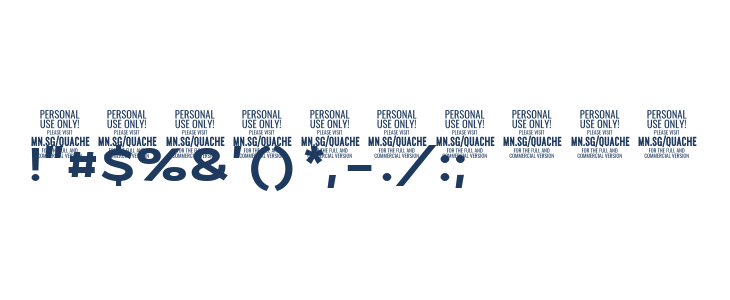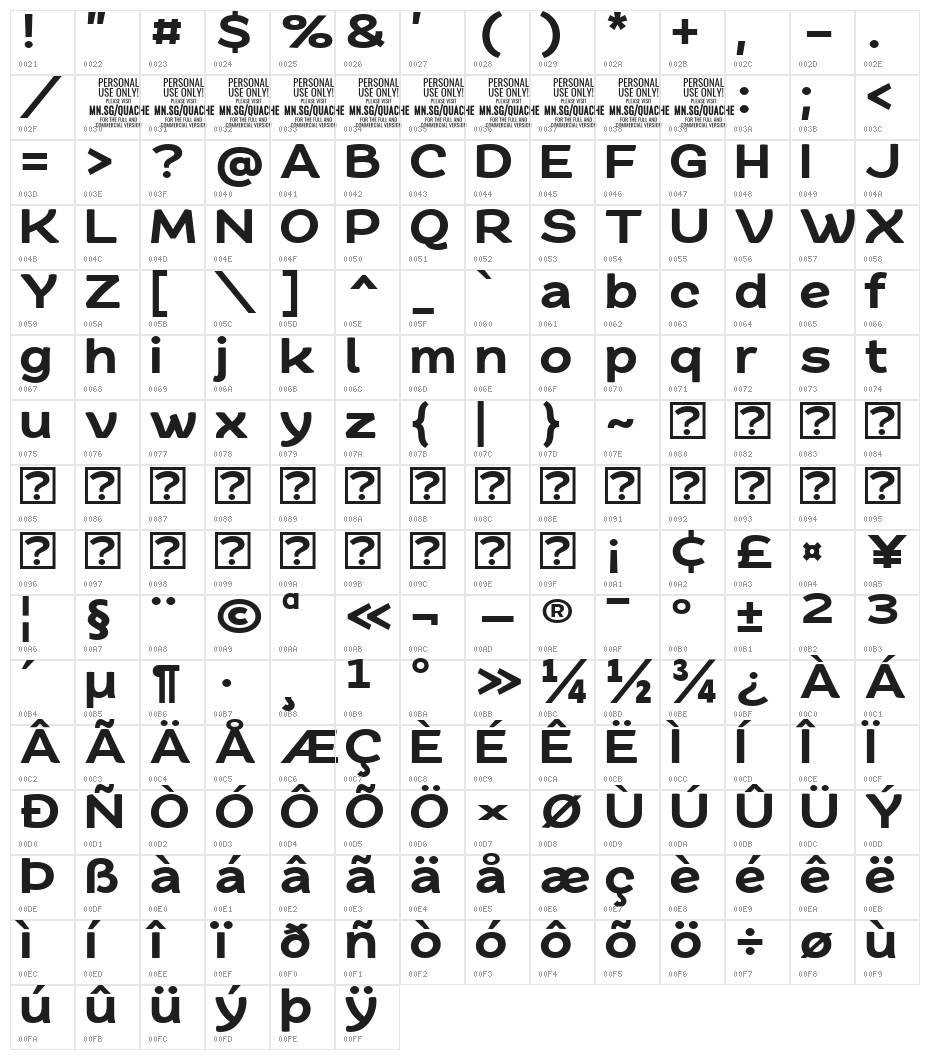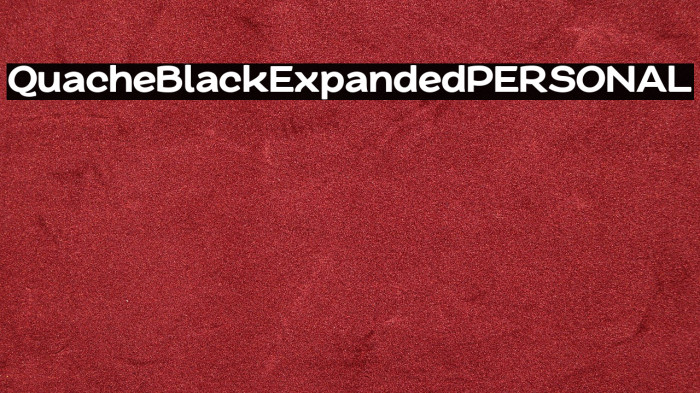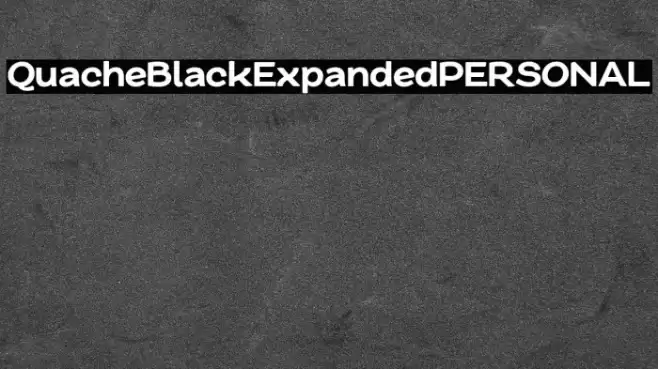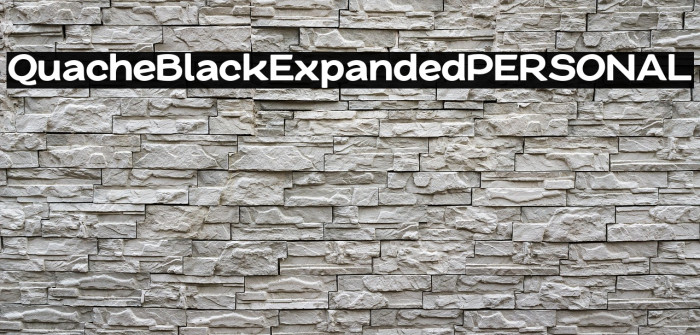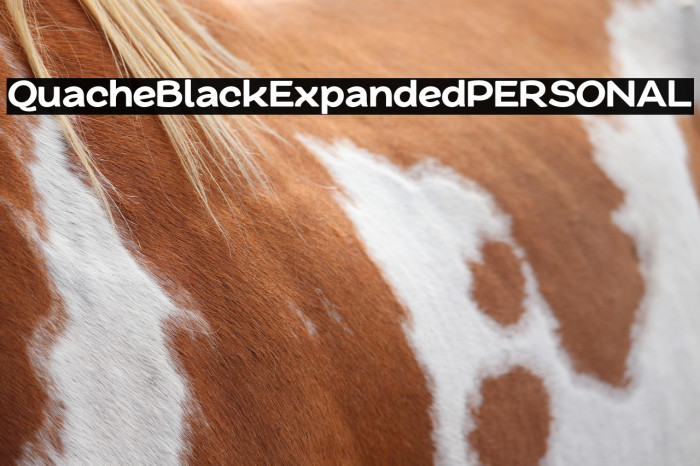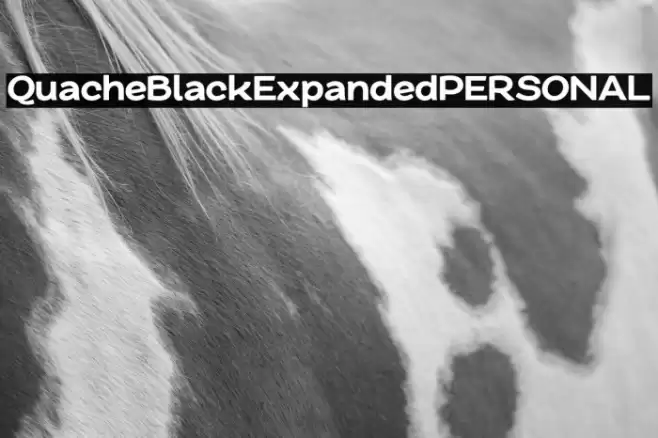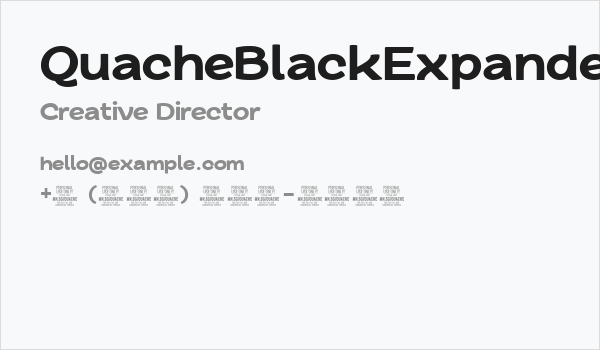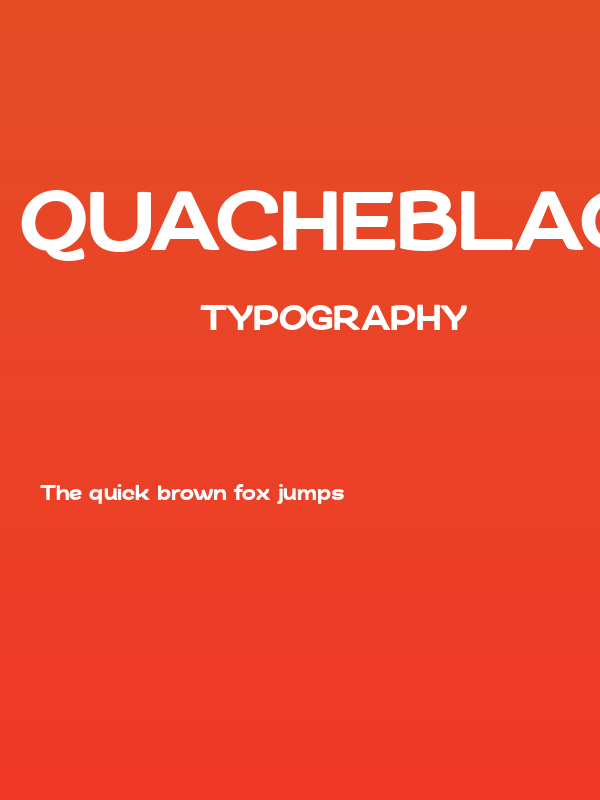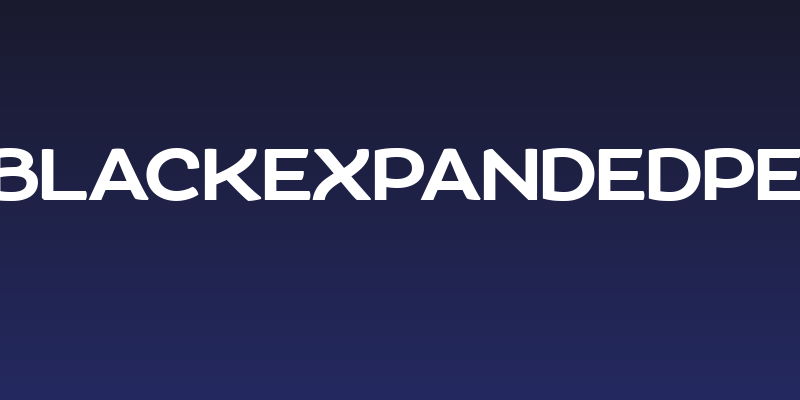
This font features a bold and expanded style, characterized by its thick strokes and wide letterforms. The uppercase and lowercase letters maintain a consistent weight, providing a strong and impactful appearance. The design is clean and modern, with a slight geometric influence, making it suitable for a variety of applications. The characters are evenly spaced, ensuring readability and balance. The font includes a full set of numerals and a selection of special characters, enhancing its versatility for different design needs.
| Proposed Projects | Ideal for headlines, posters, branding, and advertising materials where a strong visual impact is desired. |